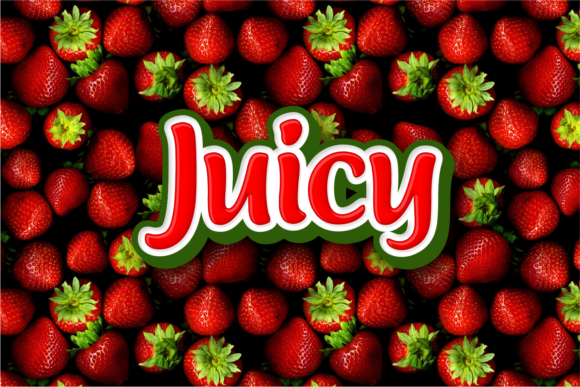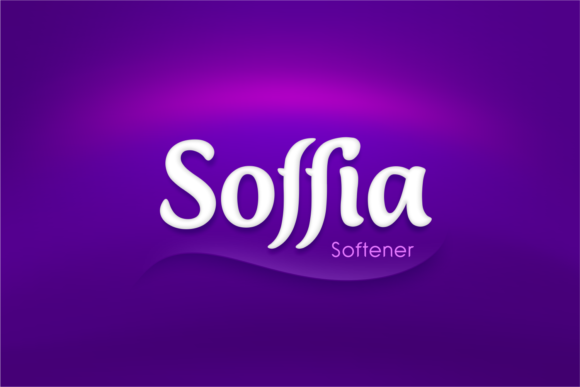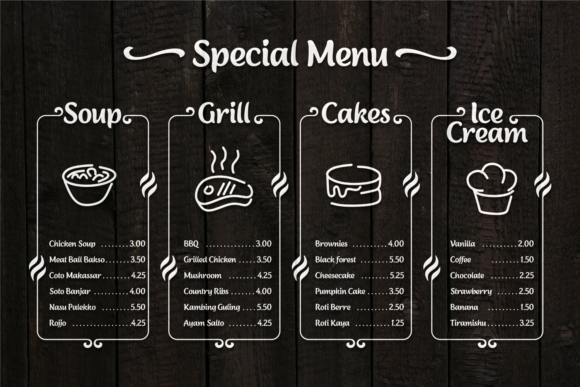
Introduction to Lambola Font
As designers, we’ve all been there – staring at a blank canvas, trying to find the perfect font to bring our creative project to life. The right font can make all the difference, and today we’re excited to introduce you to a new design resource that’s sure to become a favorite: the Lambola Font.
Imagine being able to add a personal touch to your designs with a font that’s both casual and smooth, yet playful and fun. The Lambola Font is perfect for designers looking to add a little extra personality to their work, and with its high-quality design, you can trust that your project will stand out from the crowd.
Whether you’re working on a free download or a paid project, the Lambola Font is a valuable addition to any designer’s toolkit. Plus, with a transparent background, you can easily layer it over your design without worrying about any distracting backgrounds.
Key Features of Lambola Font
- High-quality, professional design suitable for various creative projects, including logos, branding materials, and marketing collateral.
- Comes in a single weight and style, ideal for projects requiring a clean and simple aesthetic.
- Includes a range of characters, including uppercase and lowercase letters, numbers, and punctuation marks, making it a versatile design resource.
Honest Review: Lambola Font
Lambola Font is a unique design resource that I was excited to dive into for my next creative project. The moment I downloaded it, I was struck by its clean, modern aesthetic. The font’s transparent background made it easy to integrate into my design without any hassle.
- ✨ High-quality design: Lambola Font is visually stunning and perfect for any creative project.
- ✨ Easy to use: The font is straightforward to apply to your design, and the transparent background makes it a breeze to work with.
- ✨ Versatile: Lambola Font can be used in a variety of settings, from logos to digital products.
While Lambola Font is an excellent design resource, there are a few limitations:
- ⚠️ Limited customization options: While the font itself is high-quality, there are limited options for customizing the design to fit your specific needs.
- ⚠️ May not be suitable for all projects: Lambola Font is best suited for modern, minimalist designs. It may not be the best fit for more traditional or complex projects.
Overall, I’m impressed with Lambola Font. While it may have some limitations, it’s a high-quality design resource that’s perfect for creative projects. If you’re looking for a modern, easy-to-use font, Lambola Font is definitely worth checking out.
Lambola Font
The Lambola Font is a high-quality design resource ideal for creative projects. It features a unique and stylish design, perfect for adding a touch of elegance to your work.
Tips for Getting the Most Out of Lambola Font
To get the most out of the Lambola Font, use it in combination with other design elements to create a visually appealing design. Experiment with different font sizes, colors, and arrangements to achieve the desired look.
The Lambola Font is ideal for various design projects, including:
- Business cards and brochures
- Social media graphics and ads